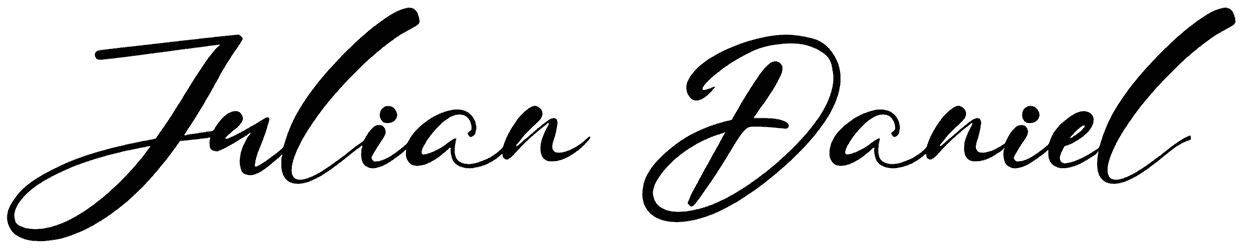
Julian Daniel Font
Julian Daniel is a complete set of dynamic characters that can bring a beautiful look. This calligraphy font is the masterful tool you need to turn your writing into a masterpiece, and it can take your brand to a high level.
Using this feminine font, you can bring your ideas to life with a natural aesthetic through tattoos, book covers, packaging, and t-shirts. The lack of numbers may limit you in some projects, but thanks to the unique design, this problem is well covered.